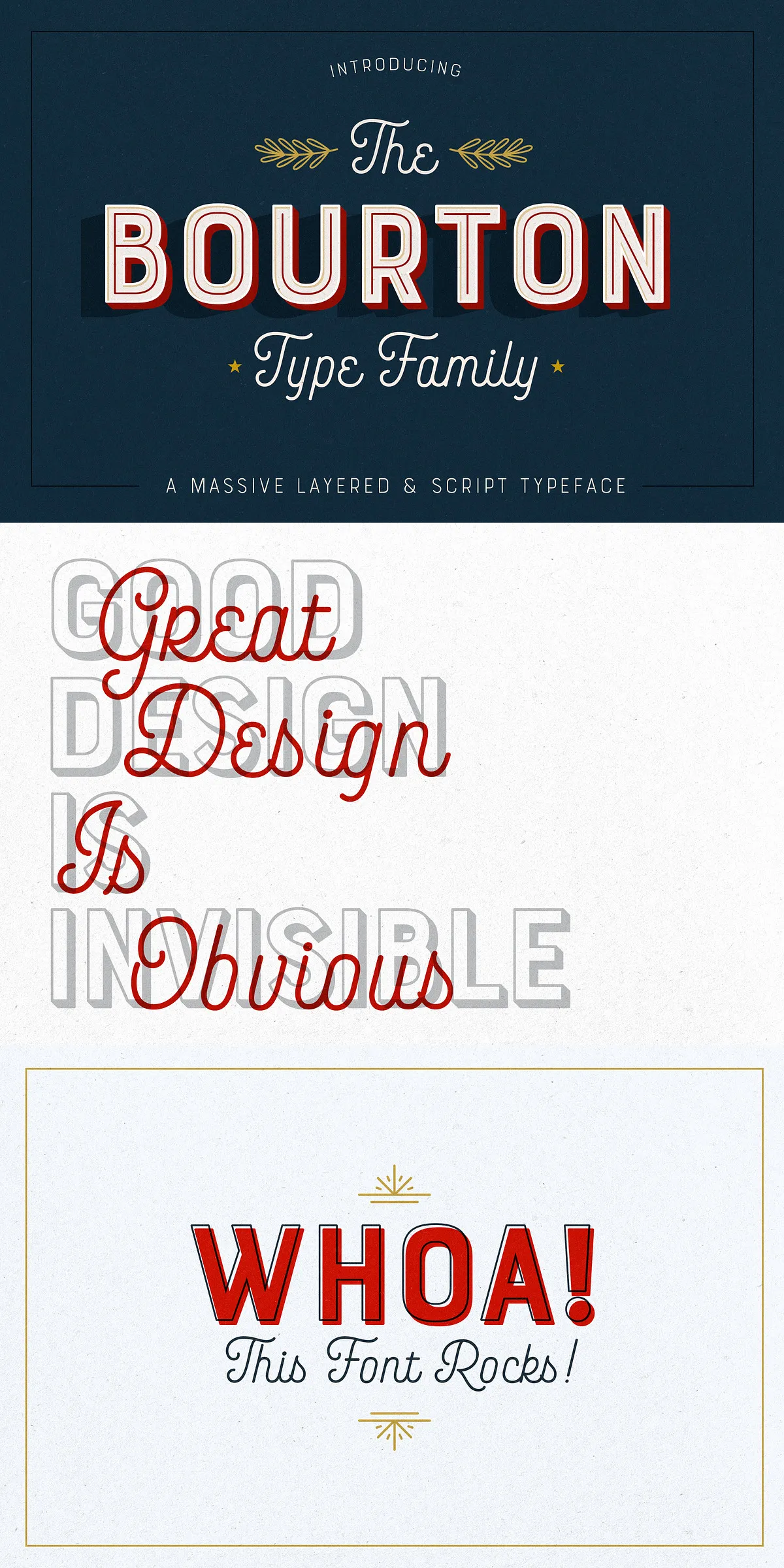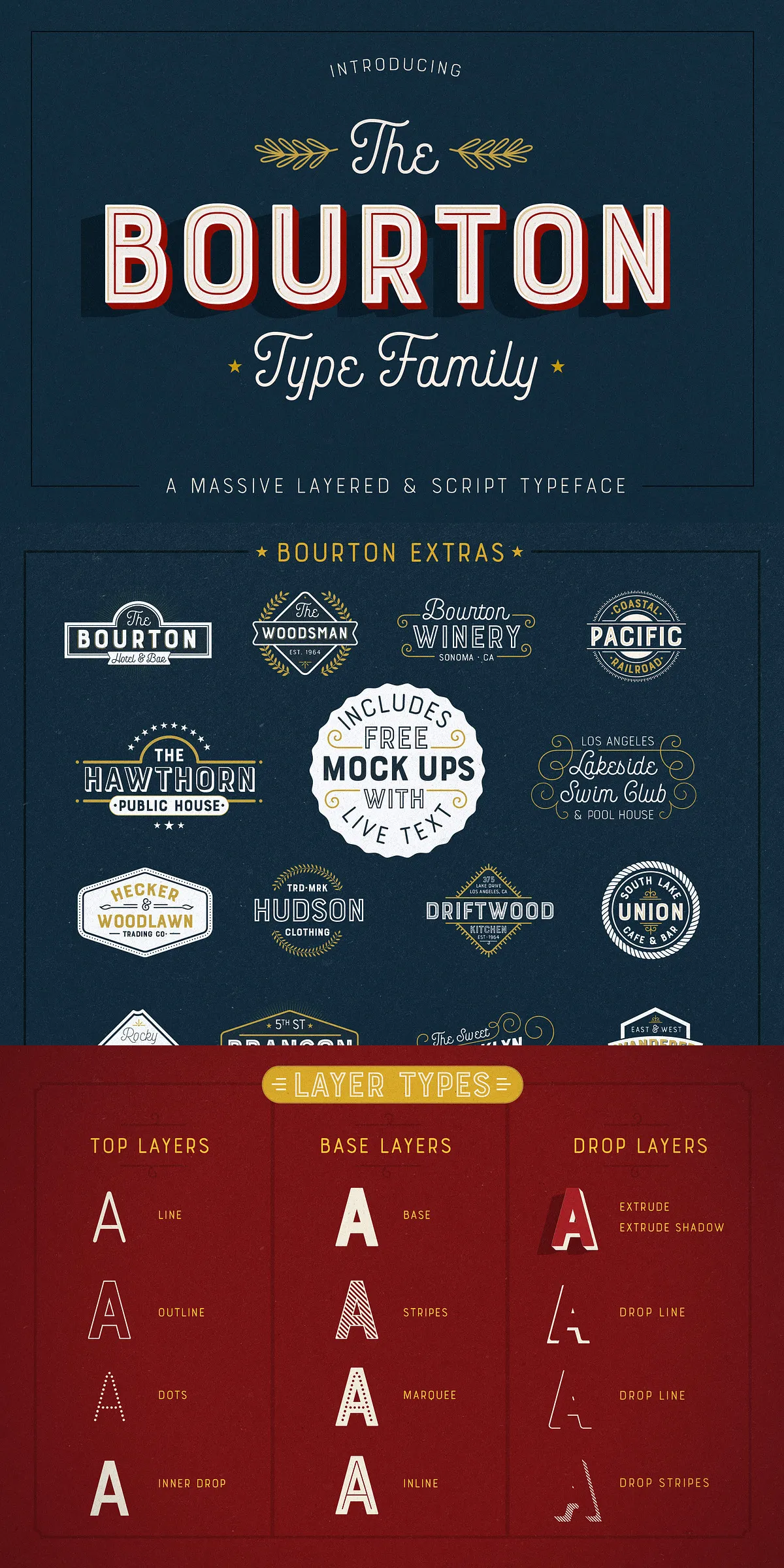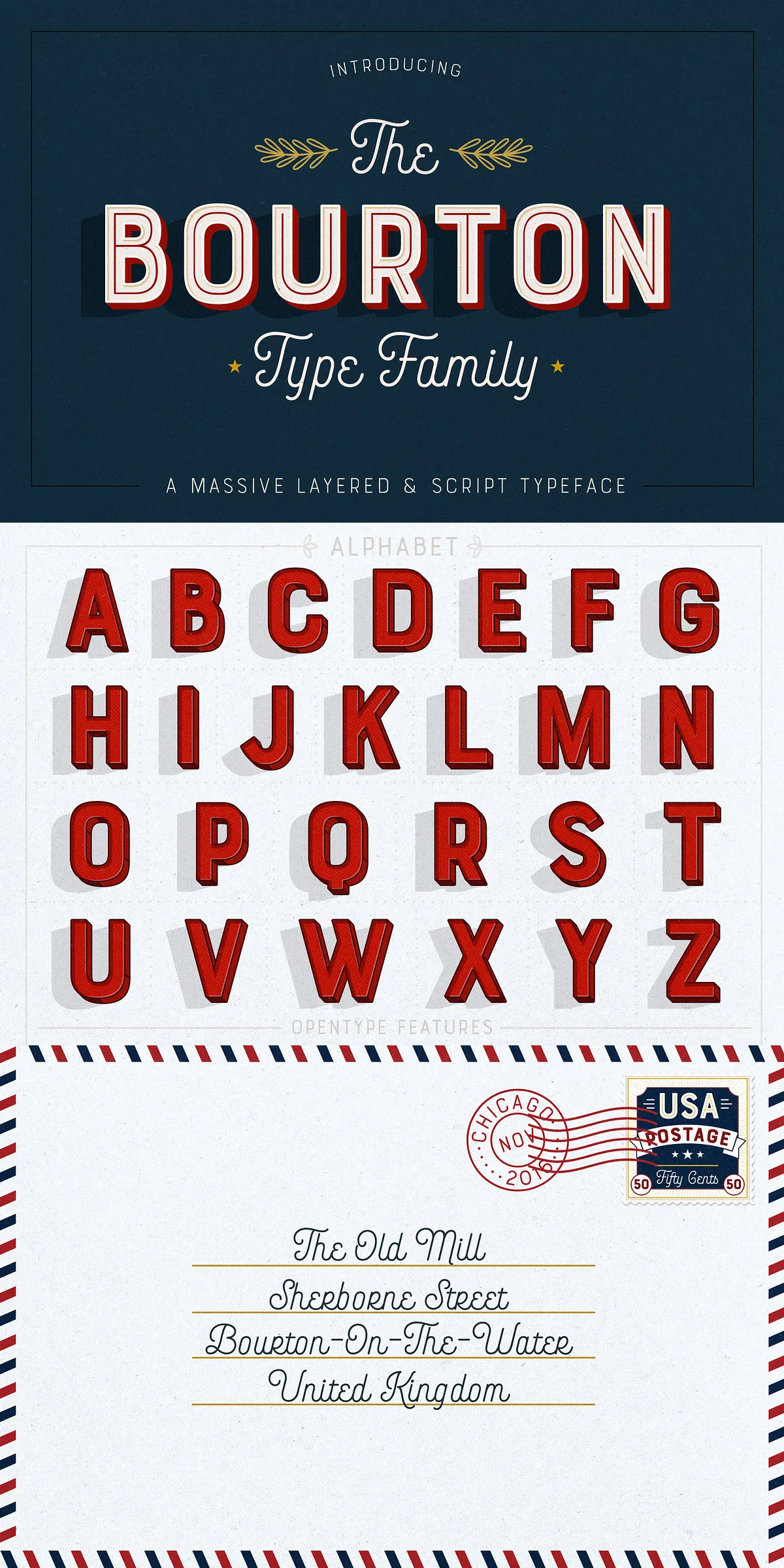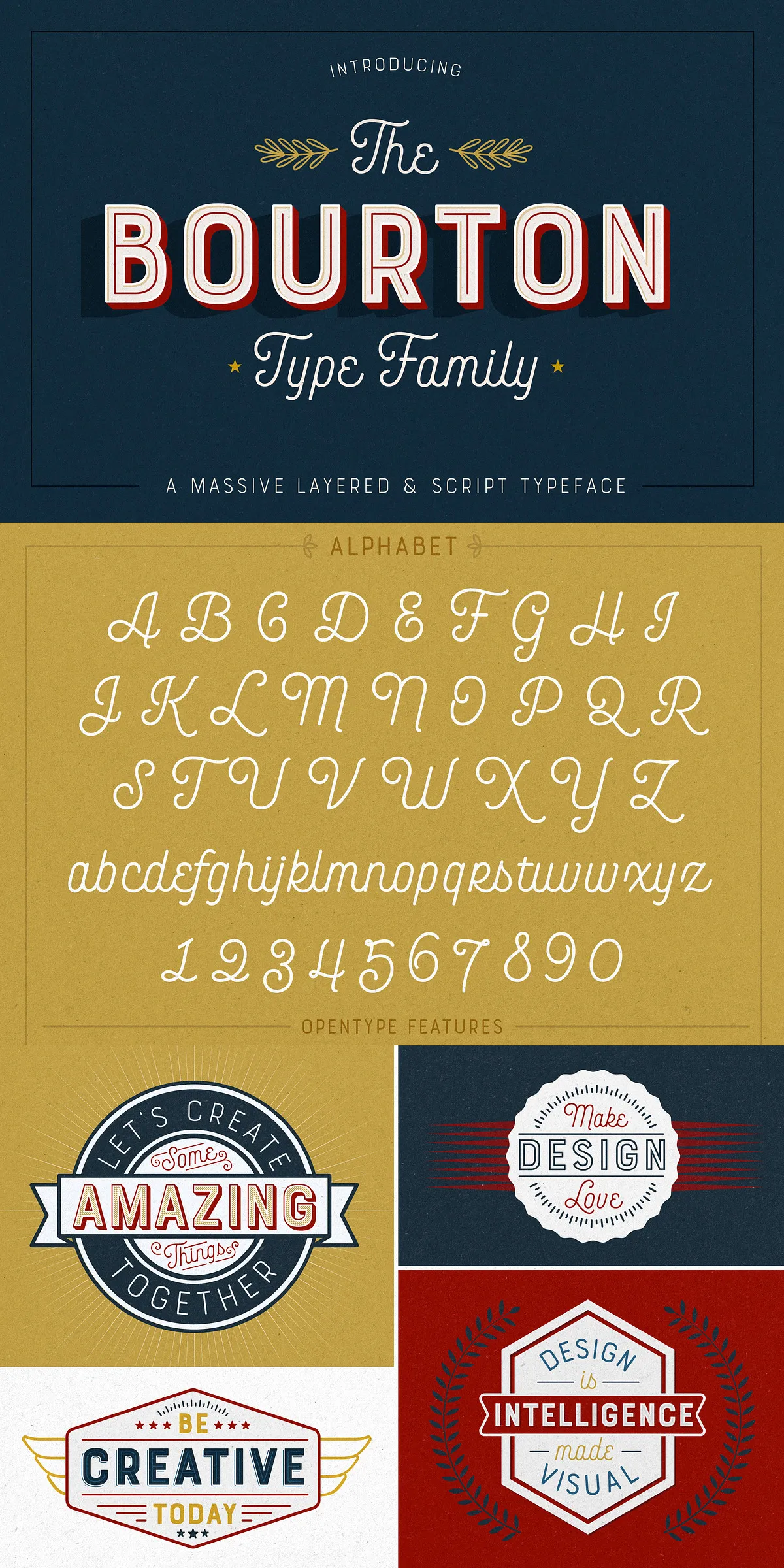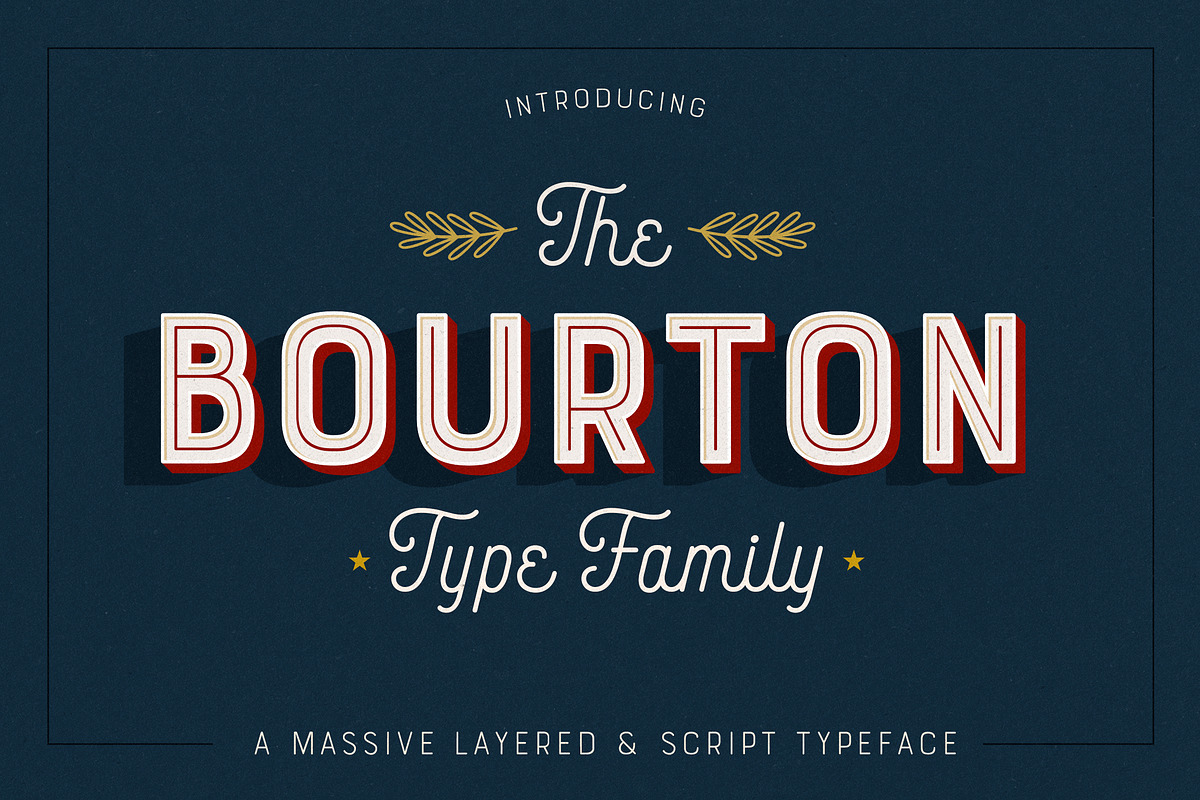
Bourton delivers a powerful, flexible type system built for fast, creative branding and expressive display typography. This family expands on its original aesthetic with extended layering options, fresh stylistic alternates, rich graphic extras, and a matching script that enhances pairings and refinements. Whether you build logos, badges, posters, or social assets, Bourton gives you modular control: stack layers, add ornaments, or apply drop shadows to achieve bold, professional results quickly.
Comprehensive Layering System For Dynamic Typography
Bourton ships as a true layering toolkit. The family includes six base layer fonts (Base, Inline, Marquee, Stripes A, Stripes B, Stripes C) that establish the primary form and texture of your type. On top of these you can apply six top layer fonts (Base Drop, Dots, Line Light, Outline Medium, Outline Bold) to create emphasis, decorative effects, or inverted treatments. The system also offers six extrude fonts (Extrude, Outline, Shade A, Shade B, Shade C, Shadow) for dimensional treatments and five drop shadow fonts plus five solo styles (Drop Shadow, Drop Extrude, Drop Line, Drop Stripes A, Drop Stripes B) to push graphics off the page with striking depth.
How To Combine Layers For Fast Results
Combine a base layer (for structure) with a top layer (for decorative detail) and optionally add an extrude or drop set to create shadow and depth. Designers can mix striped bases with outline tops or pair marquee bases with dot tops to create unique, on-brand lockups. The layered approach keeps assets editable: export as vectors or use font layers in Adobe and Figma to tweak spacing, color, and order without recreating artwork.
Included Script Font And Complementary Line Styles
Bourton includes a dedicated script family with Light and Bold weights that match the display shapes and rhythm of the main family. Use the script for signatures, secondary logotypes, or taglines to add a human touch. Two line fonts (Line Medium, Line Bold) support secondary text, dividers, and subhead treatments, which helps maintain hierarchy without introducing additional typefaces.
Script And Line Usage Recommendations
Use the Light script for delicate taglines and the Bold script for prominent badges and wordmarks. Pair line fonts with the outlined or shaded top layers to create balanced composition. The script harmonizes with all base layers, allowing you to create layered headlines that remain legible and expressive.
Graphic Extras, Ornaments, And Flourishes Included
Bourton’s extras include ornaments, banners, frames, borders, flags, and line breaks. Flourishes further expand decorative options. These assets are provided in OTF and vector formats (EPS, AI) along with a user guide to speed adoption and layout. Use the ornaments to anchor wordmarks, insert banners behind headlines, or build modular frames for social tiles and packaging.
Free Bonus Logo Templates For Rapid Prototyping
Practical Tips For Implementation And Pairing
Load the base layer and one top layer in your layout, experiment with the extrude or shadow layer for depth, and add script elements for personality. For branding, lock a base + top + extrude combo as your primary wordmark and use a stripped-back base for headlines. When exporting for the web, convert layered compositions to SVG or flattened PNGs while keeping source AI or EPS files for future edits.
Why Choose Bourton For Branding And Display Work
Bourton empowers creative teams to prototype and finalize identities faster. Its layered architecture, complementary script, plentiful graphic extras, and ready-to-edit logo templates reduce design friction and accelerate iteration. Use Bourton to build bold headlines, adaptable logos, and richly detailed promotional graphics—then iterate without rebuilding. Happy creating.